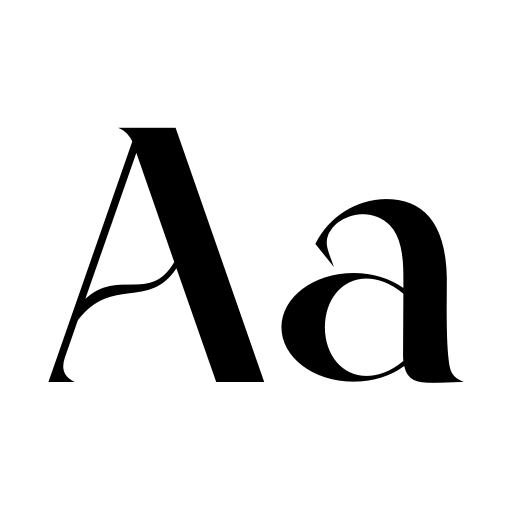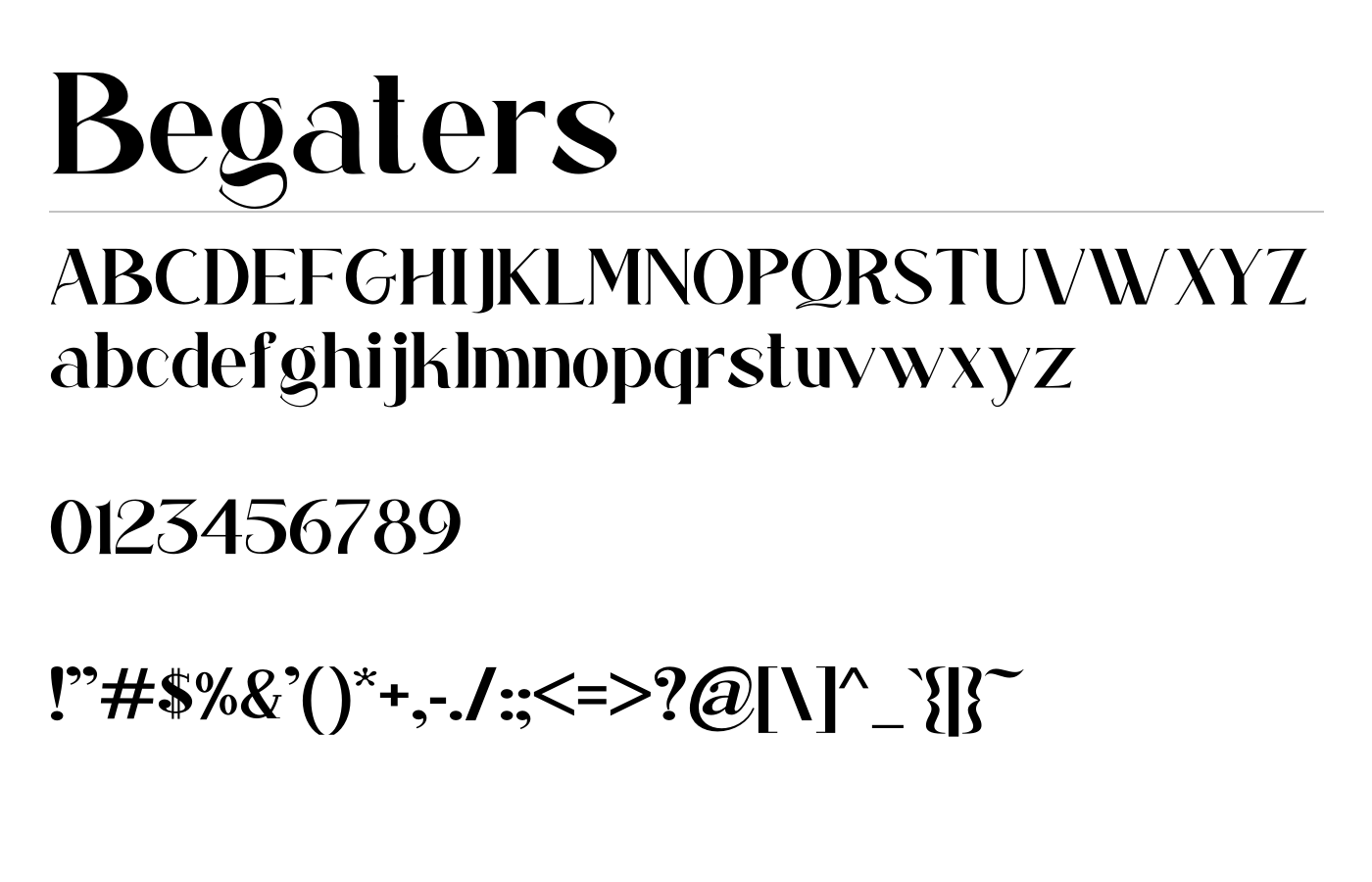
Begaters is a sophisticated serif typeface with high contrast between thick and thin strokes, featuring elegant, sharply cut serifs that convey a modern yet classic feel. Its unique letterforms, such as the distinct double-story 'g' and stylized 'Q' tail, add personality and charm, making it ideal for luxury branding, editorial headlines, and elegant logos where refinement and distinctiveness are key. This font blends tradition with contemporary style, offering a striking presence for upscale and creative design projects.
Begaters Font